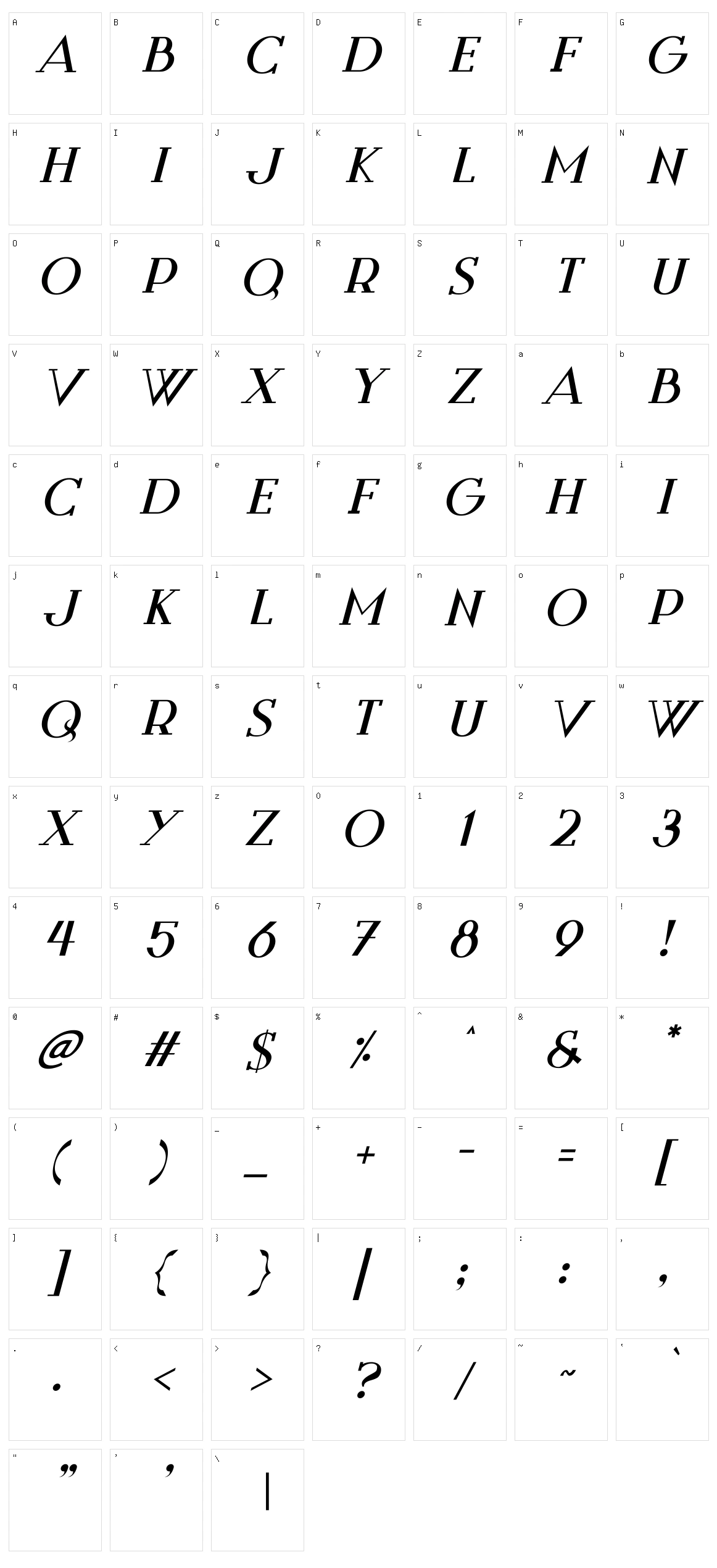
The free font Style Queens is carefully designed by Hawtpixel, showcasing a thoughtful balance of creativity and usability and falls under the Serif font style. When you download the ZIP file, it contains only 76.41 KB of font files, making it lightweight and quick to download. Please review the license details below to understand permitted usage and distribution rights. If license information is not available, we recommend using this font for personal projects only or contacting the author directly for commercial usage permissions.